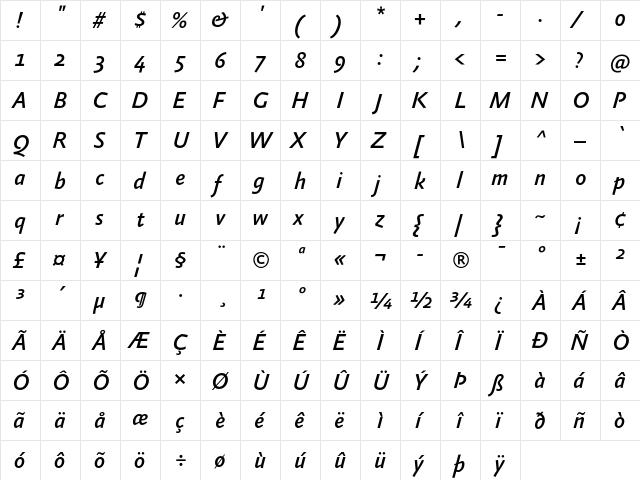
AbsaraSans-MediumItalic Regular
Design Context for AbsaraSans-MediumItalic Typeface
AbsaraSans-MediumItalic offers clean, dependable letterforms without strong stylistic allegiance, making it a practical choice for designers who need flexibility. Its italic angle brings a sense of urgency and motion to the letterforms.
Pro Tip: Use AbsaraSans-MediumItalic for emphasis, pull quotes, and subheadings where its slanted energy can add rhythm to the layout.